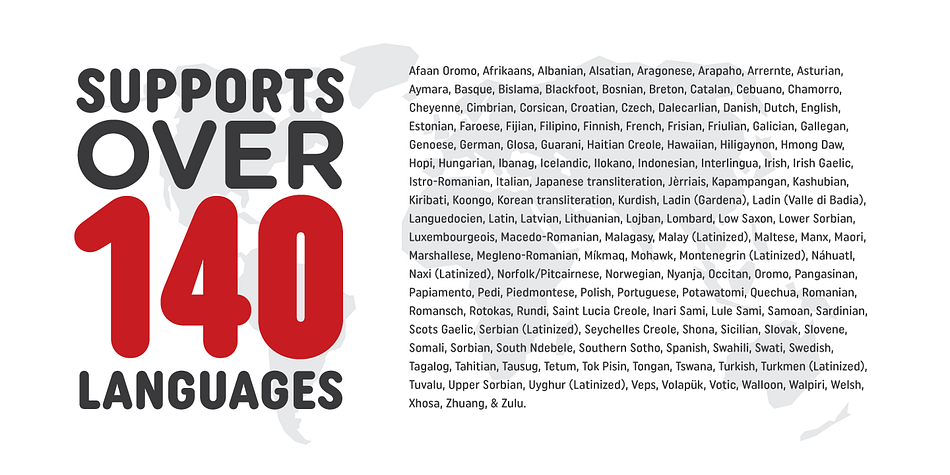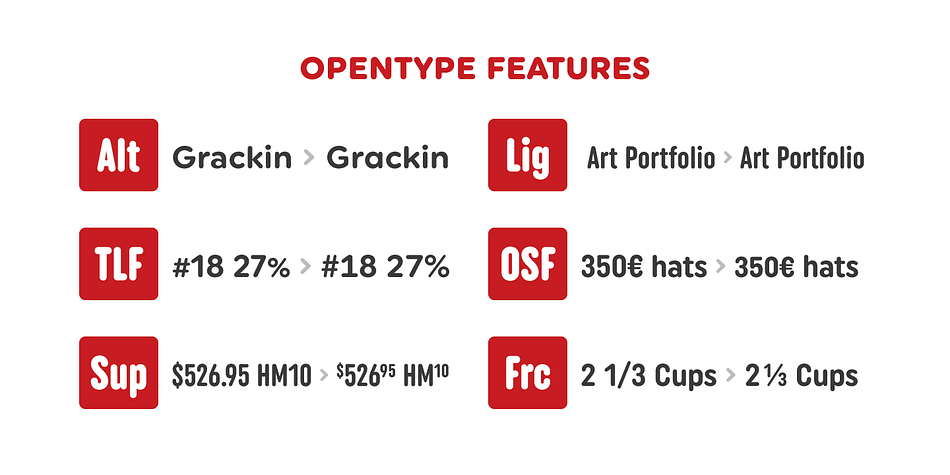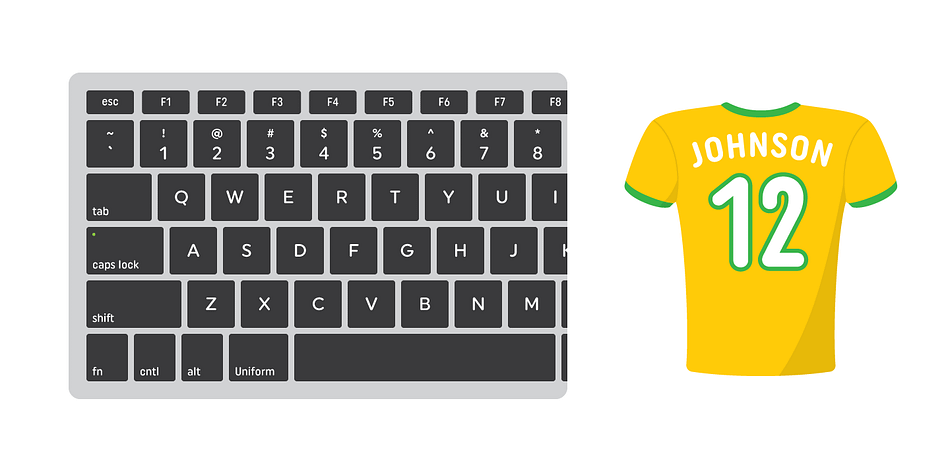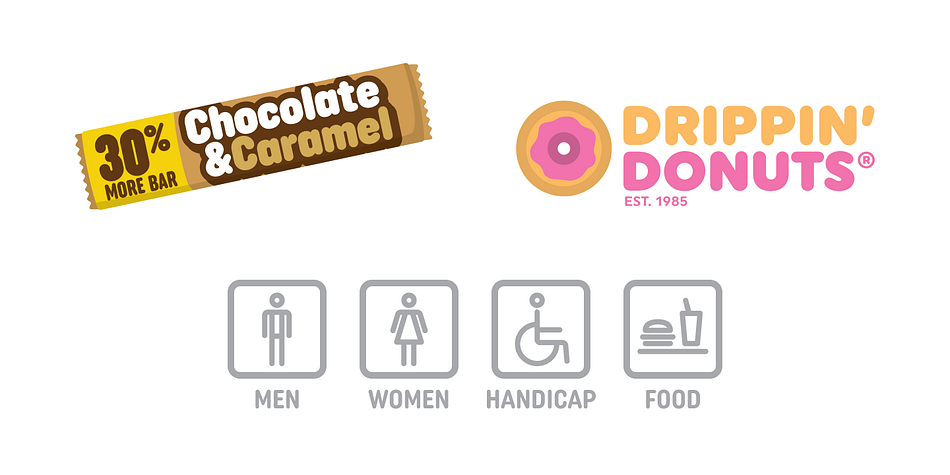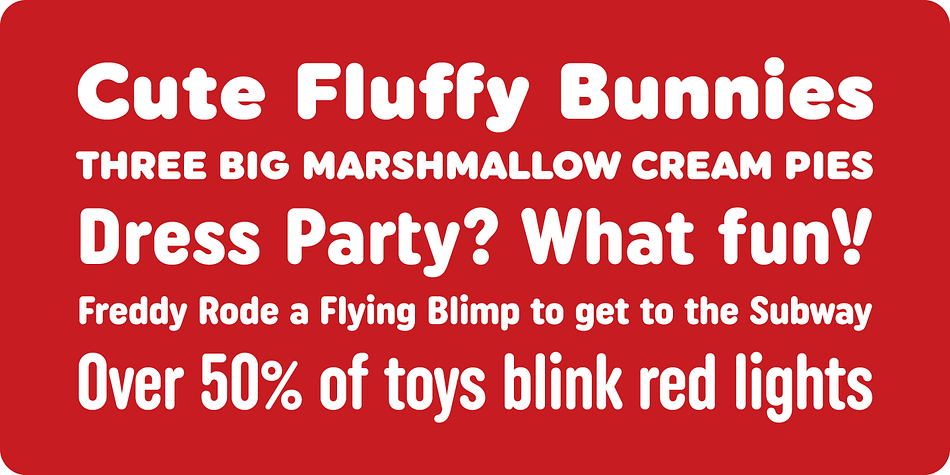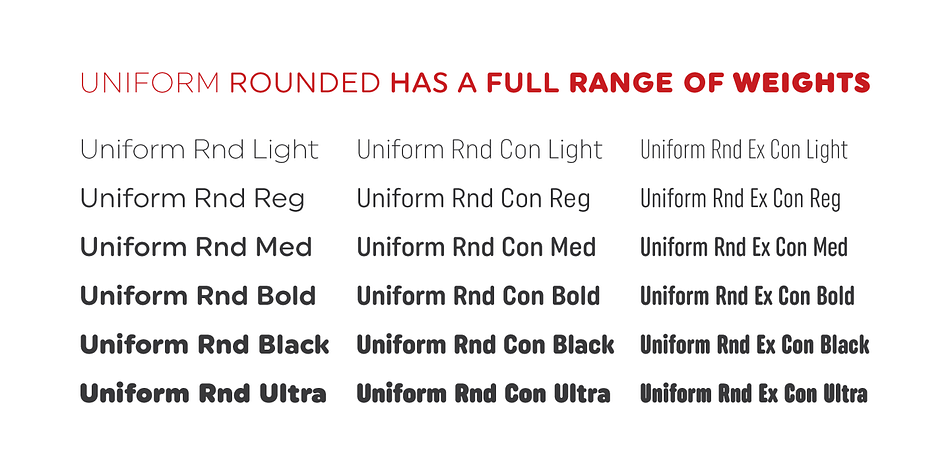
Uniform Rounded is a sans serif font family. This typeface has eighteen styles and was published by Miller Type Foundry.
Uniform Rounded is a type family based on the 2014 Miller Type Foundry release, Uniform. This superfamily is comprised of three widths (regular, condensed, and extra condensed) each with six weights. The result is a fun and playful typeface that is extremely versatile and is a great asset for any project on any medium.
Uniform Rounded is a multi-width geometric type family designed around the circle. The O of the Regular width is based on a circle, the O of the Condensed width is based on 1.5 circles stacked (with straight sides) and the O of the Extra Condensed width is based on two circles stacked with straight sides as well, and all other characters are derived from this initial concept. This unique idea creates a remarkably fresh type family that bridges the gap between circular geometric typefaces and condensed straight-sided typefaces. Uniform Rounded also includes many opentype features like Old Style Figures, Tabular Lining Figures, Alternate characters, Ligatures and more.